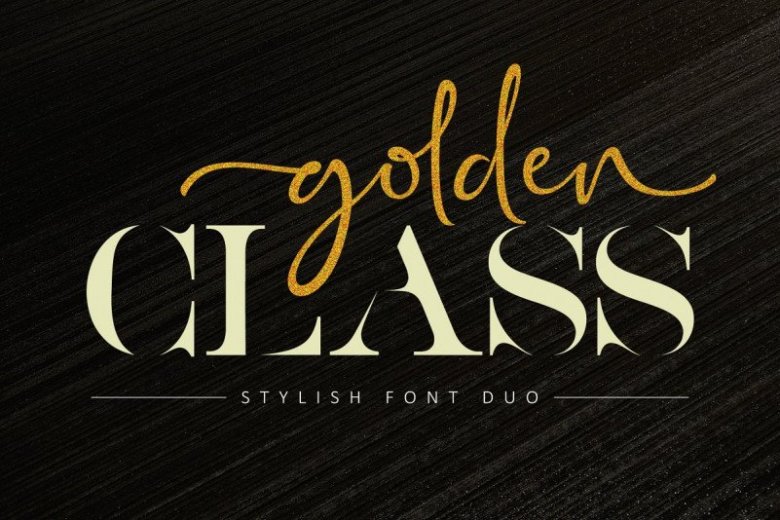
Golden Class Script Font
A stylish font duo, script & serif font duo that compliments whatever you imagine! These fonts are ideal for branding and will decorate any of your projects. Introducing Golden Class Font!  It is design and shared by Subectype Studio. The Golden Class is font duo between serif and modern calligraphy, Golden Class good for logo branding,wedding invitation,typhography wedding,quotes text,magazine,or anything do you want,..